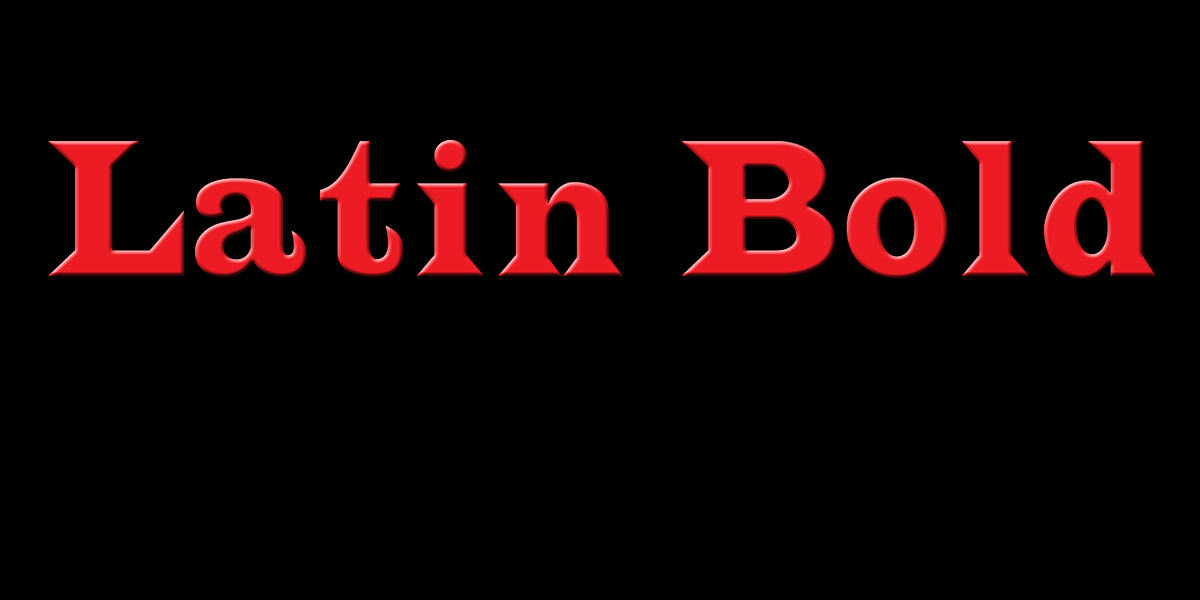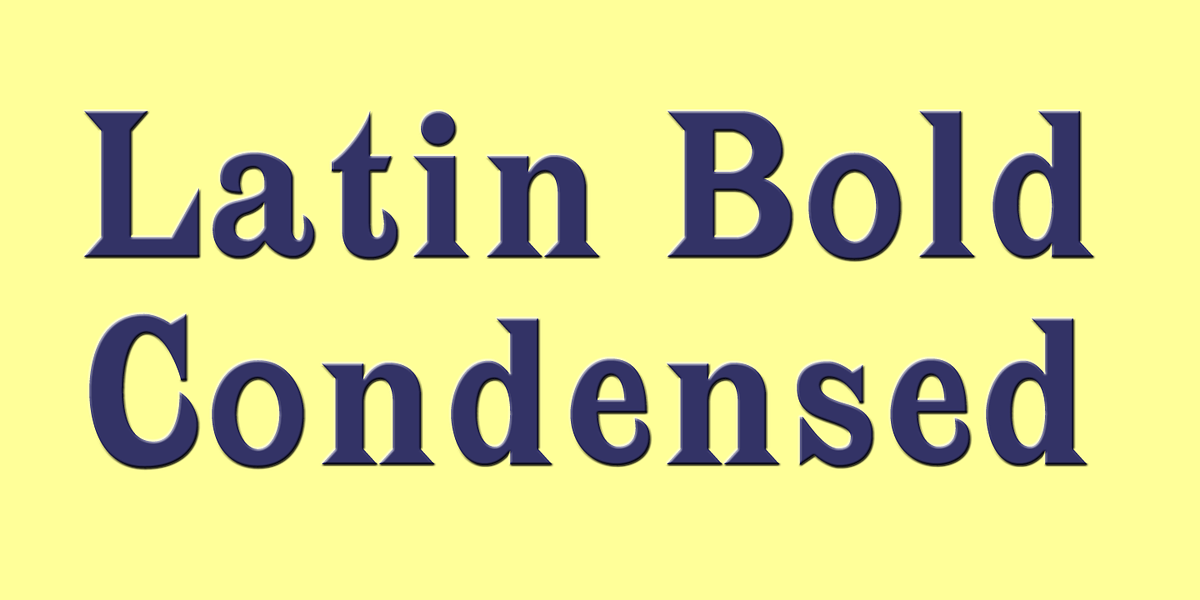
Latin Bold
This is a classic serif typeface designed around 1860. It's likely intended for body text and formal documents due to its traditional style.